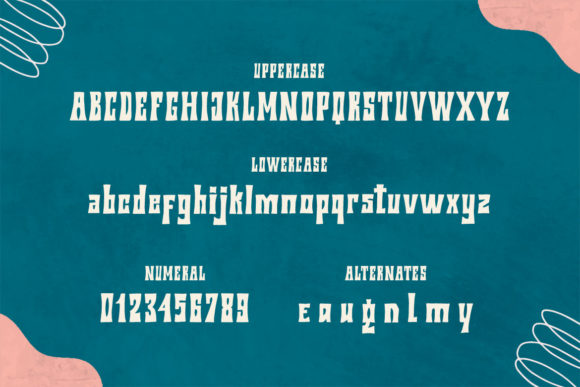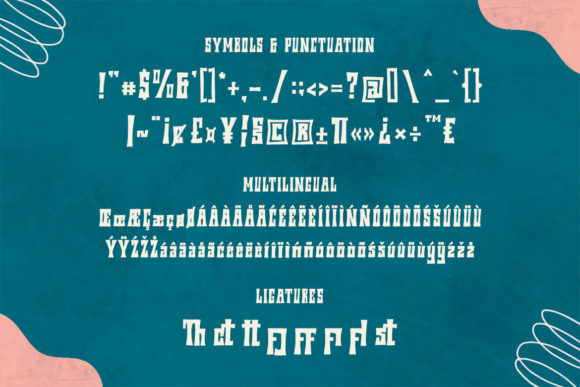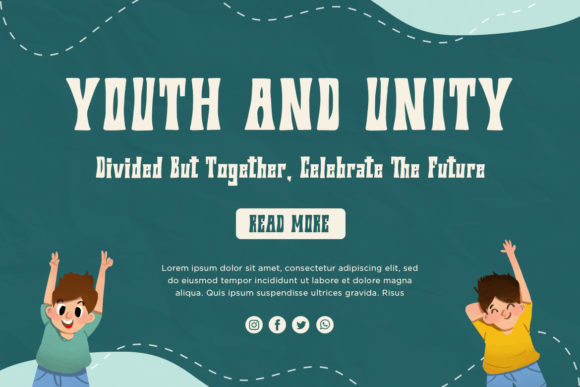
Introduction to Marshed Font
As a designer, you’ve likely found yourself in the midst of a creative project, struggling to convey the perfect message through typography. The blank page stares back at you, taunting you with its emptiness. But then, like a ray of sunshine, you stumble upon a font that sparks your imagination – the Marshed Font.
This delightful, quirky display font is the ultimate design resource for adding a bold, retro touch to your creations. With its PUA encoding, you’ll have access to a treasure trove of glyphs and swashes, waiting to be unleashed upon your high-quality designs. Whether you’re working on a free download project or crafting a unique visual identity, the Marshed Font is sure to elevate your work to new heights.
Imagine your design coming to life with the Marshed Font’s transparent background and whimsical flair. It’s a game-changer for designers seeking a fresh perspective, and we’re excited to share its secrets with you.
Key Features of Marshed Font
- Unique, hand-drawn style with a transparent background, ideal for adding a personal touch to designs.
- Resolution-independent, making it suitable for use in both print and digital designs.
- Comes in a range of sizes, from 10pt to 200pt, allowing for flexibility in design applications.
- Designed to be easily scalable, ensuring crisp and clear text even at large sizes.
- Perfect for use in creative projects, such as logos, branding materials, and editorial designs.
Honest Review: Marshed Font
I recently stumbled upon the Marshed Font, and I must say it’s been a pleasant addition to my design resources. As a designer, I’m always on the lookout for high-quality fonts that can elevate my creative projects. And Marshed Font certainly delivers.
Here’s what I like about it:
- ✨ Unique and stylish design that adds a touch of elegance to any text
- ✨ High-quality typography that’s perfect for headings and titles
- ✨ Transparent background, making it easy to combine with other design elements
However, I do have a few minor quibbles:
- ⚠️ Limited character set, which might be a concern for designers working on longer projects
- ⚠️ Not as versatile as some other fonts, which might limit its use in certain contexts
Overall, I’m impressed with the Marshed Font. It’s a great addition to any designer’s toolkit, and I’ve enjoyed using it in my recent projects. If you’re looking for a high-quality, stylish font for your creative project, Marshed Font is definitely worth checking out.
Tips for Getting the Most Out of Marshed Font
To get the most out of Marshed Font, experiment with different font sizes, styles, and colors. Use the font in combination with other design elements to create a visually appealing and creative project. Consider using the font in conjunction with other high-quality design resources to elevate your project.
The Marshed Font is ideal for a variety of creative projects, including graphic design, digital art, and typography-based designs. Its unique style and high-quality design make it a great choice for designers looking to add a touch of elegance to their projects.